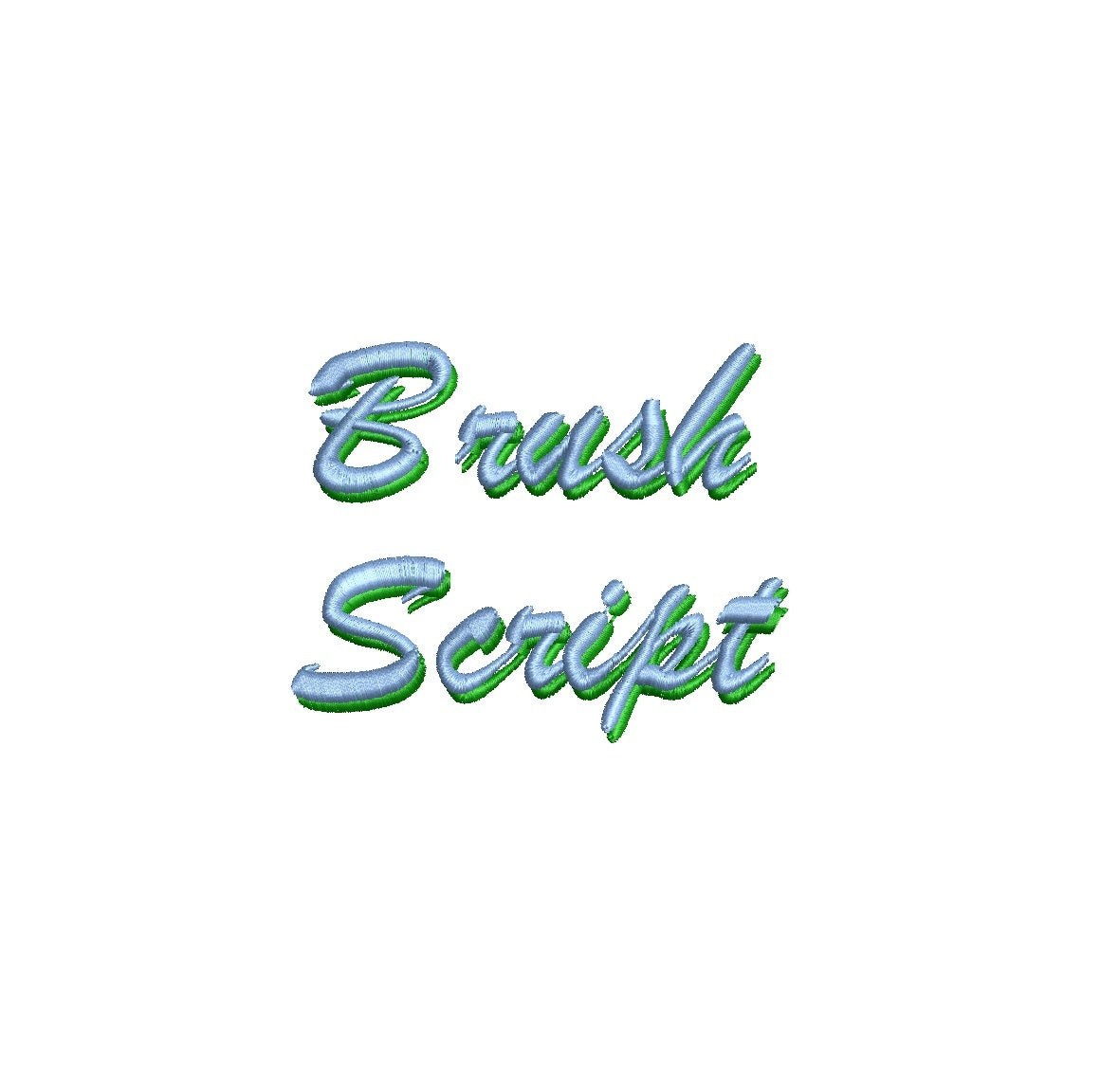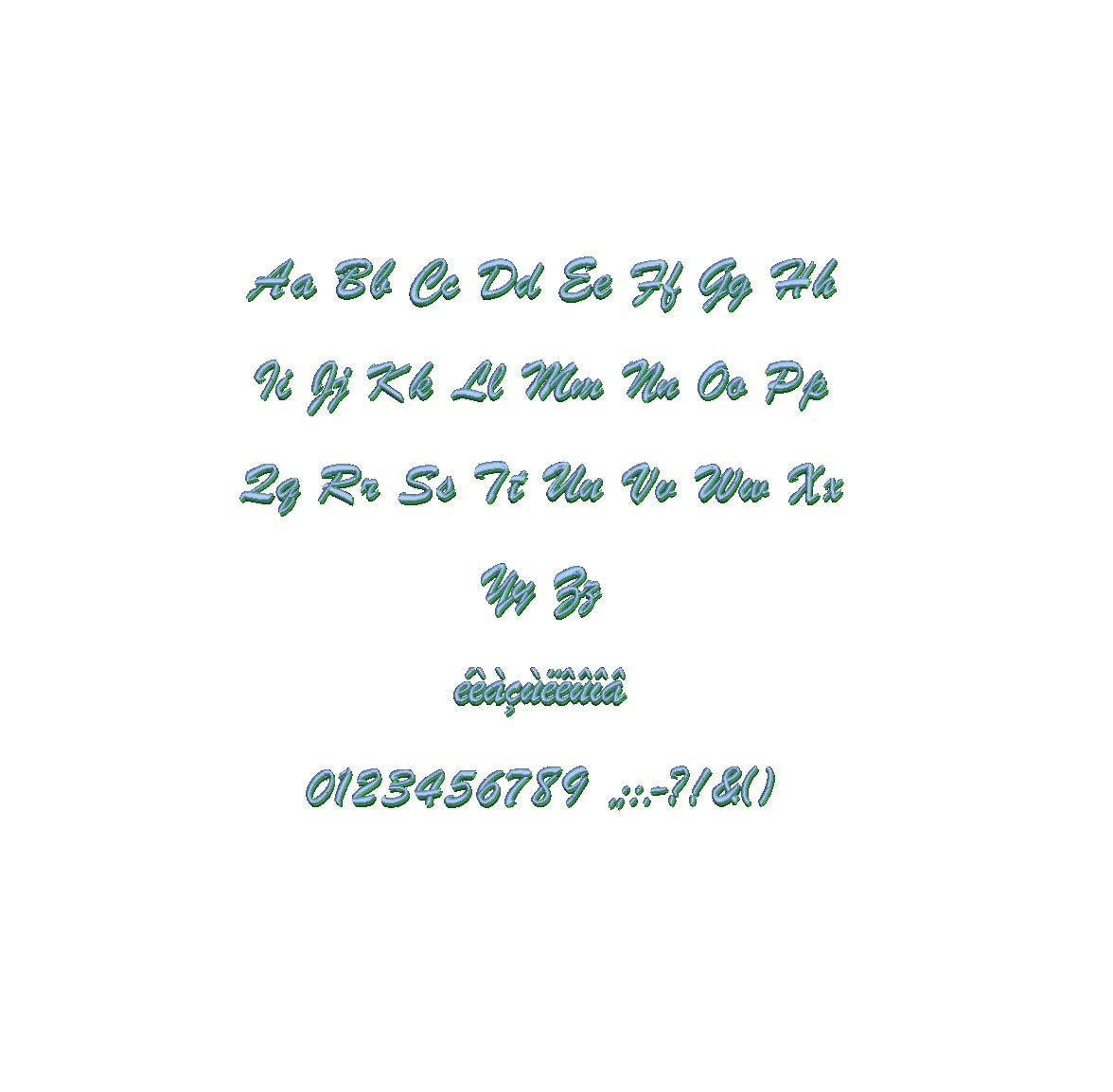
Brush Script Shadow ESA font
Elevate your design projects with the dynamic Brush Script Shadow ESA font, now fully compatible with Wilcom Studio e4.5.6 and Hatch 3 versions and up. Infuse your creations with a touch of bold elegance and artistic flair. The subtle shadows and fluid lines of this font bring depth and vibrancy to every design. Streamline your creative process and achieve exceptional results by utilizing this font with industry-leading software. Upgrade your projects with the compatibility of Brush Script Shadow ESA font and craft visuals that leave a lasting impression. Embrace the power of this font for your design journey today!